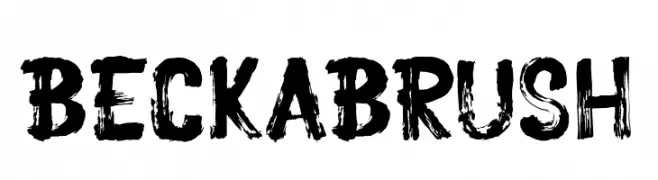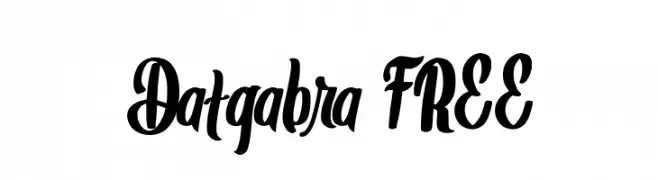
A graceful and elegant script font with flowing, cursive letterforms.
A flowing, cursive font with elegant loops and smooth transitions.
A bold, expressive brush-style font with dynamic, hand-painted strokes.
A dynamic, fluid script font with elegant, flowing strokes and a cursive appearance.
A bold, playful handwritten font with flowing strokes and a casual style.
A bold, decorative script font with flowing, interconnected characters.
A lively brush script font with fluid, cursive letterforms.
A bold, brushstroke font with a raw, artistic feel and textured edges.
A dynamic, brush-style cursive font with a handcrafted feel.
A bold, playful handwritten font with thick strokes and smooth curves.